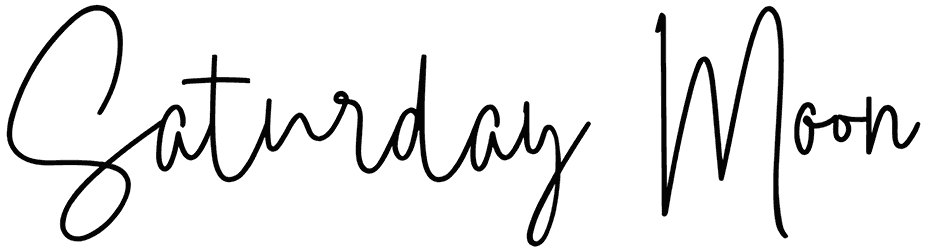
Saturday Moon Script Font
When you set a beautiful handwritten font such as this one, the final design will be more engaging. The delicate form of letters will be perfect for a business card for a designer. Even with no support for numbers and punctuation marks, the Saturday Moon Script font will help you present an impressive show of your special taste.